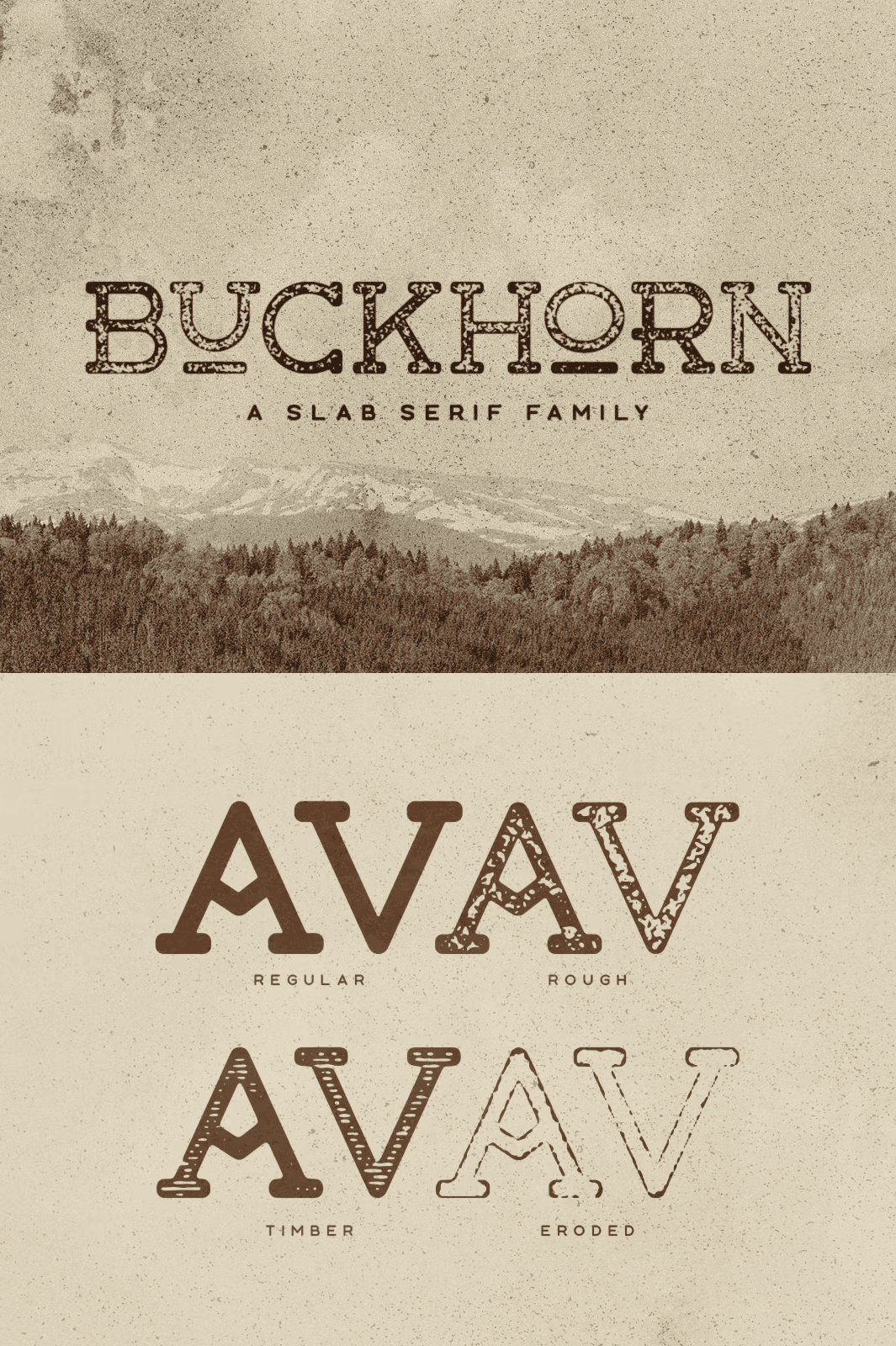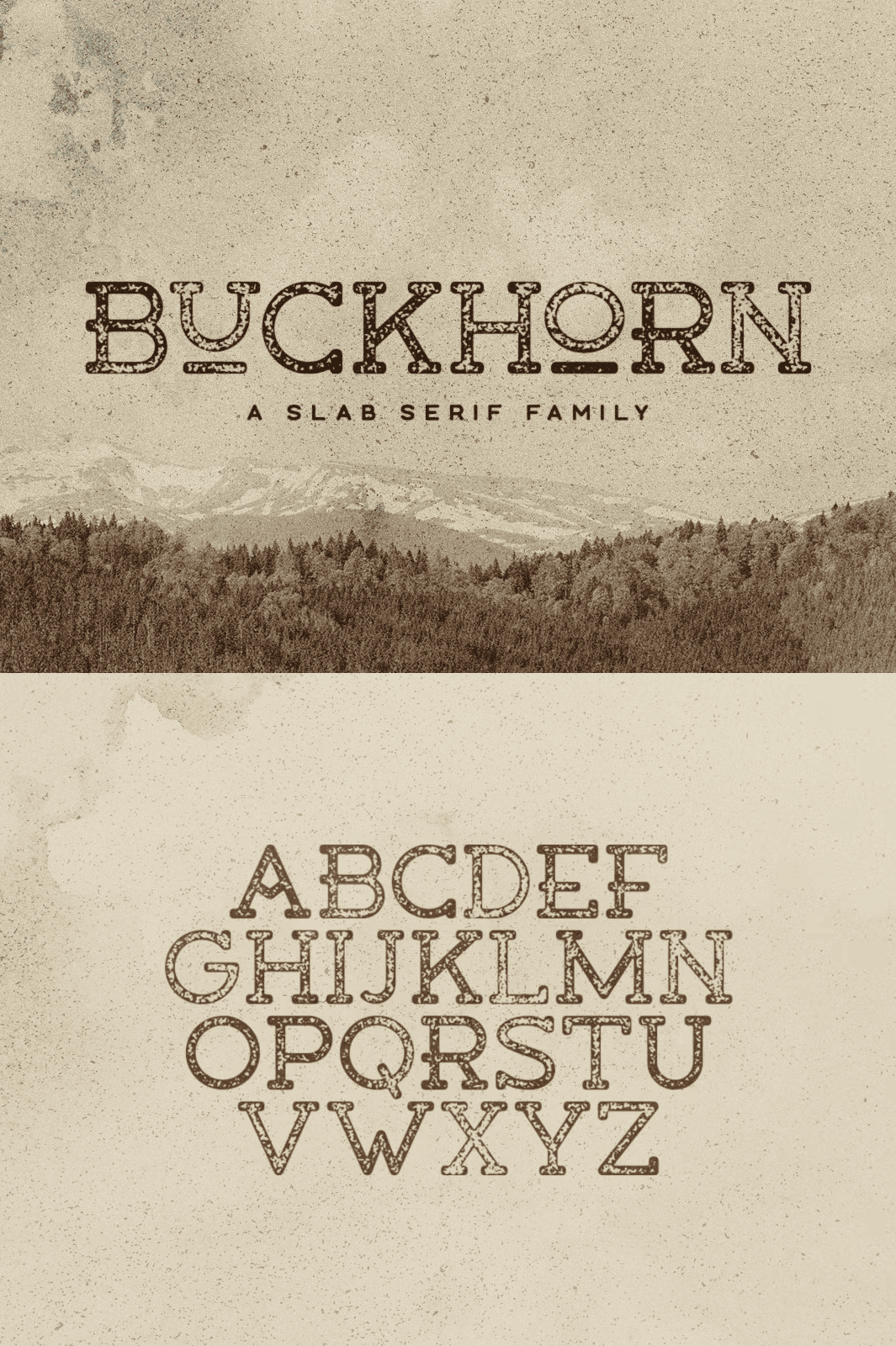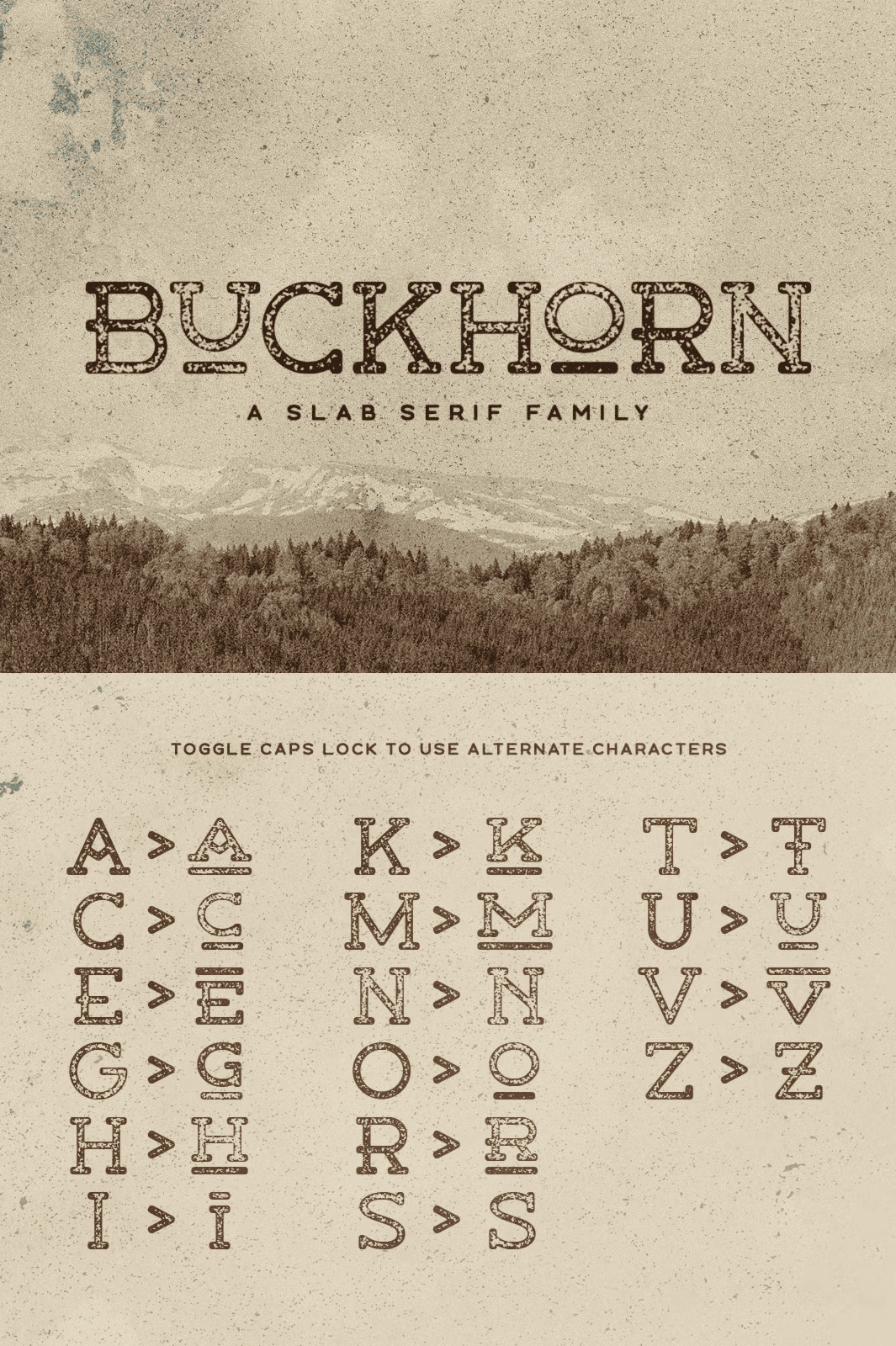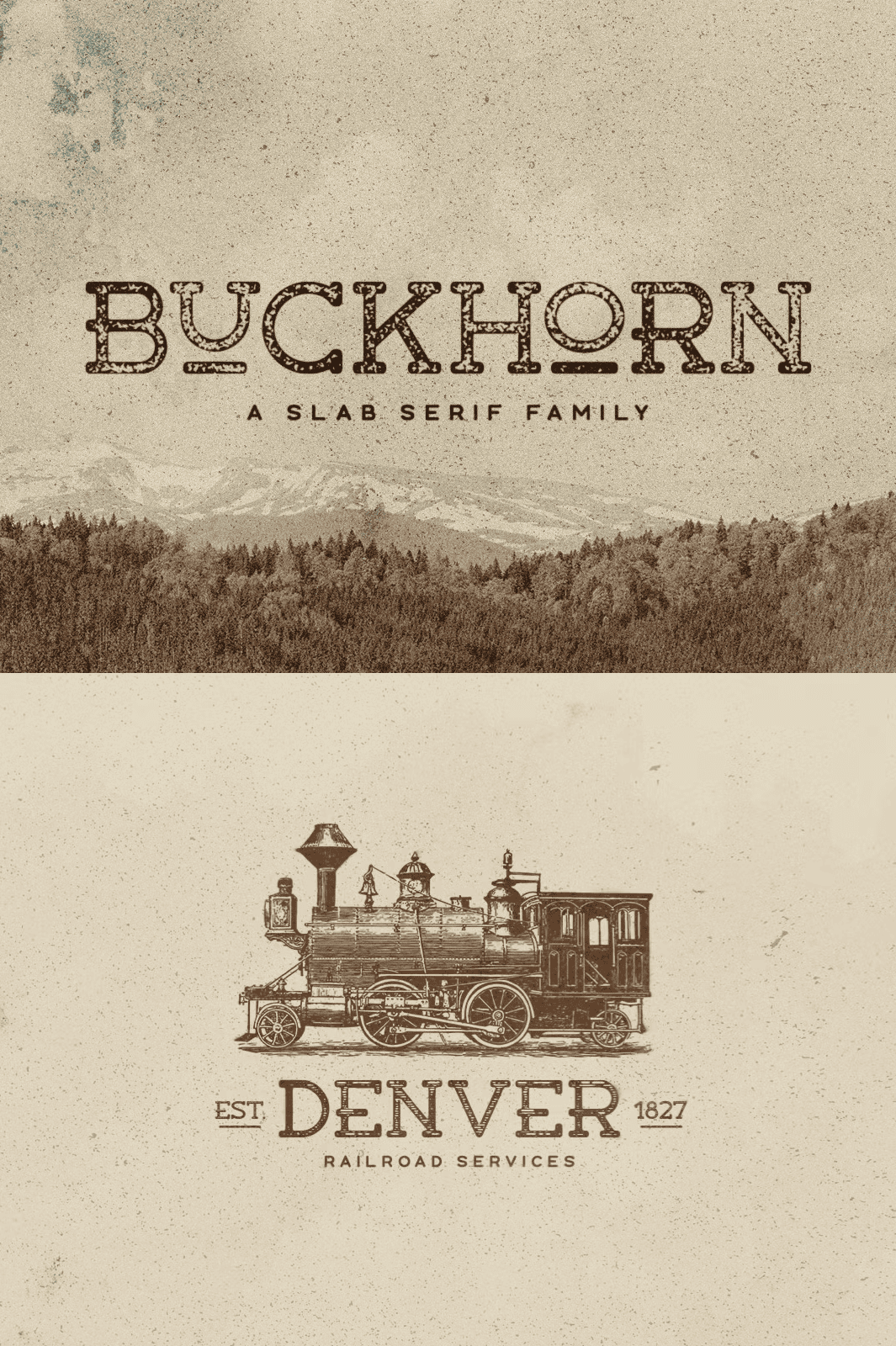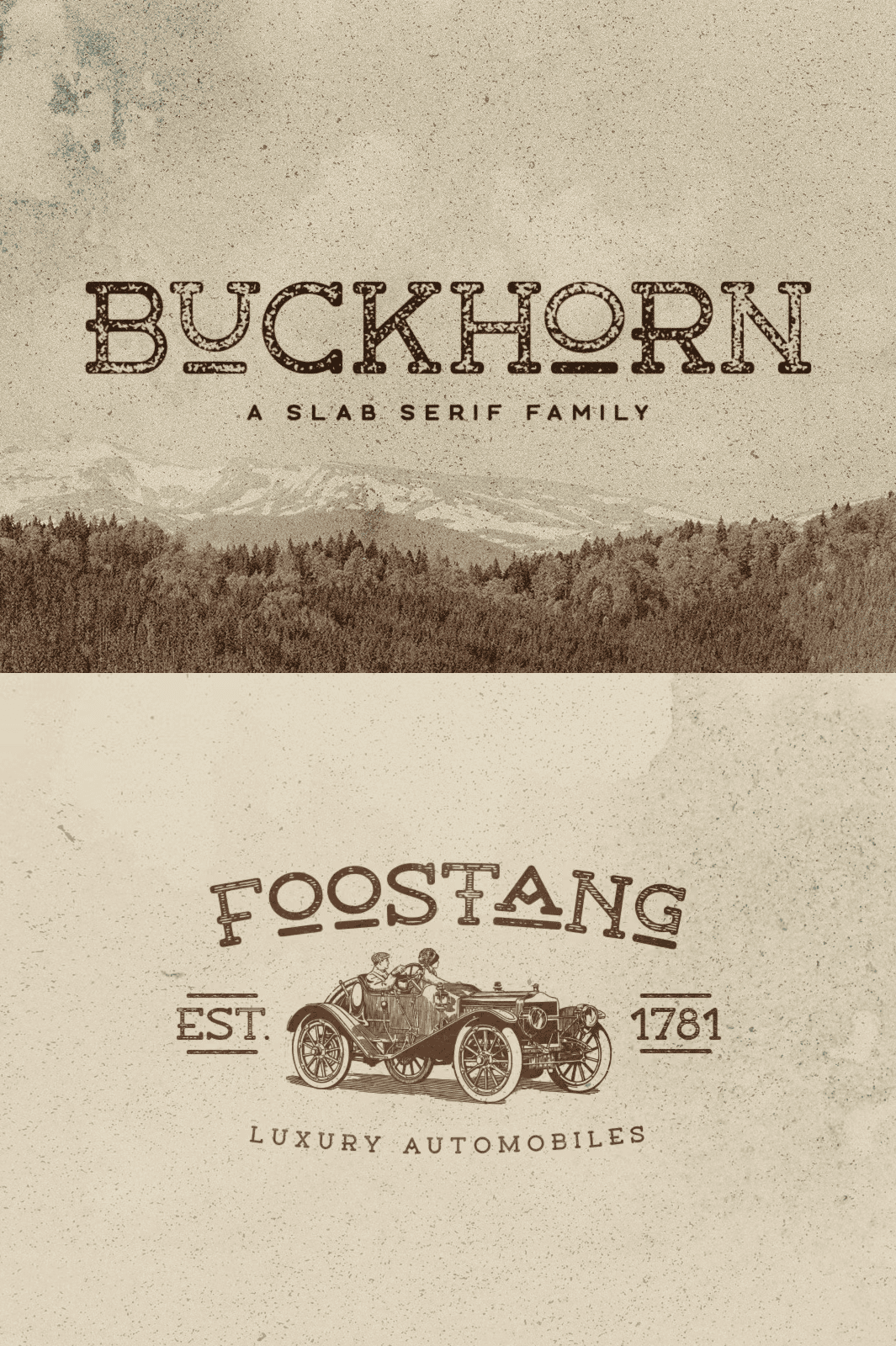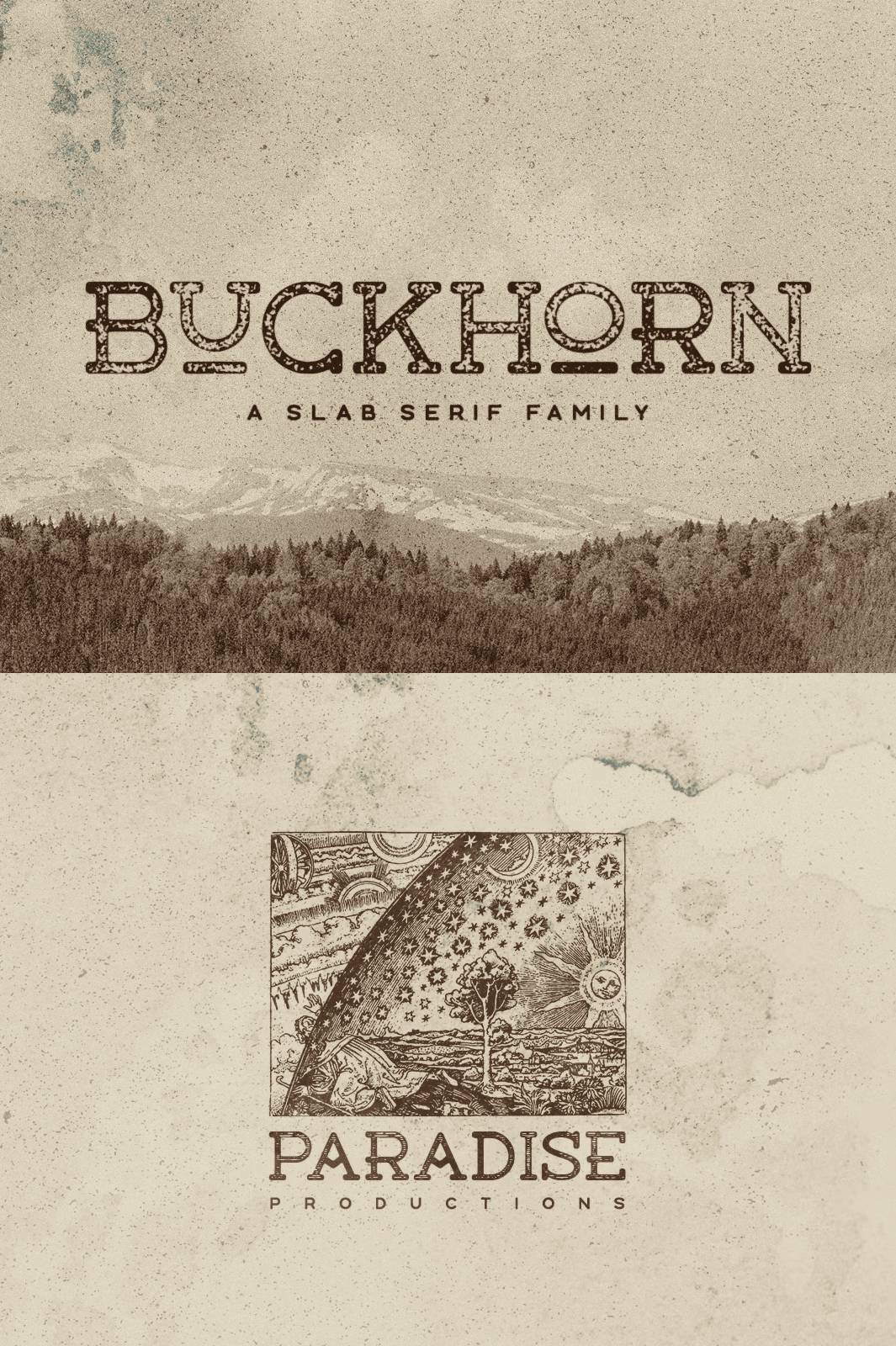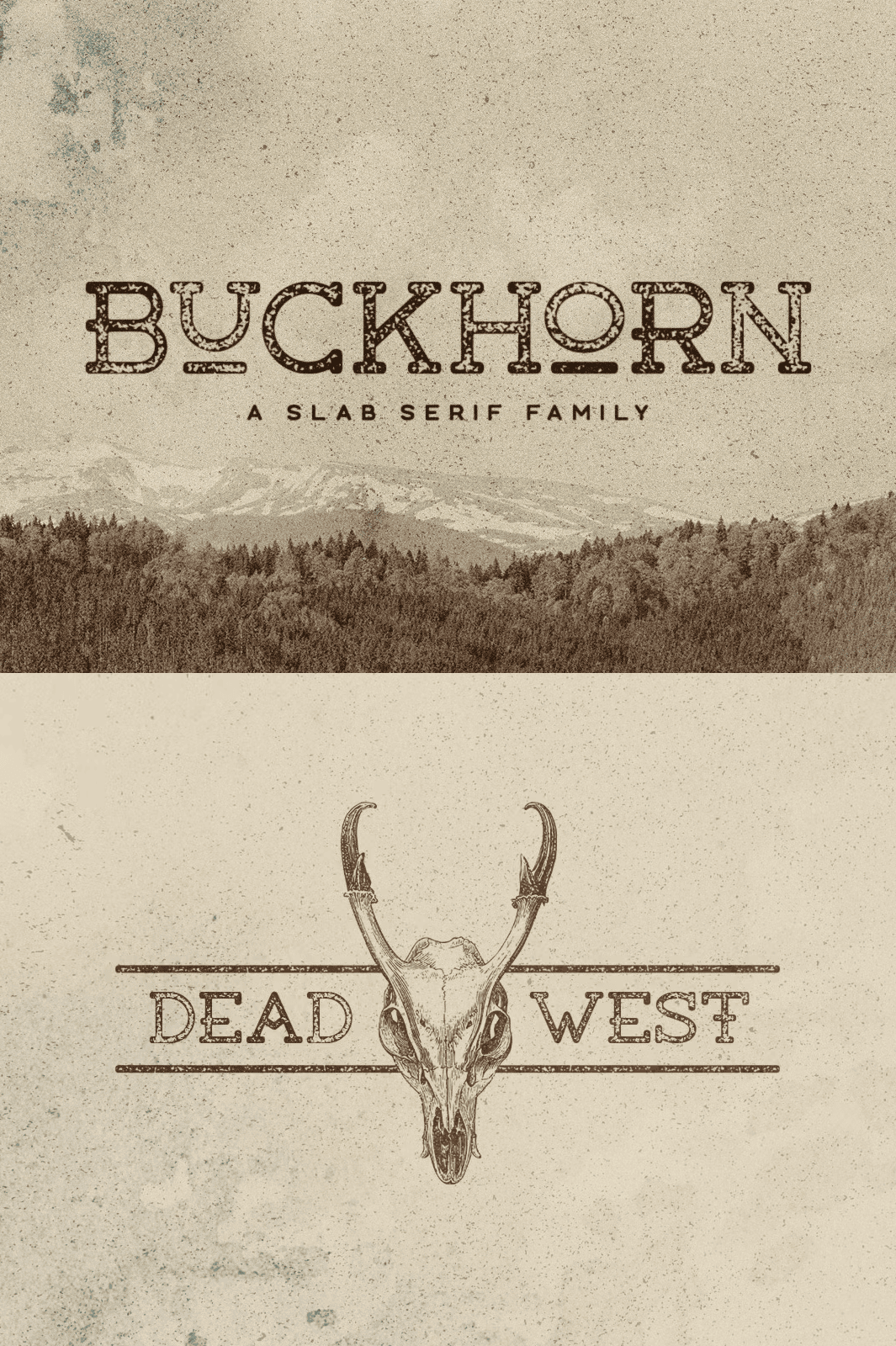
Buckhorn Typeface
Unlock the power of visual dominance with Buckhorn, a commanding slab serif typeface engineered for maximum impact. Designed for designers who demand attention, Buckhorn delivers a relentless presence across digital and print media. With **four fully distinct style options**, you can instantly shift tone, mood, and hierarchy within a single project—without switching fonts. Whether you’re crafting a gritty urban manifesto or a refined art gallery catalog, Buckhorn gives you the creative control to lead the eye and command the canvas.
A Comprehensive Font Family with Four Defining Styles
Buckhorn isn’t just one font—it’s a complete typographic arsenal. Each of its four style variants brings a unique personality to your work:
• Regular – Clean, balanced, and instantly professional, perfect for foundational headings and structured layouts.
• Heavy – An aggressive, high-contrast powerhouse ideal for dramatic headlines and attention-grabbing posters.
• Outline – A striking open-frame style that creates bold negative space, excellent for logos, badges, and high-contrast visual statements.
• Shadow – Adds depth and volume with a subtle drop shadow effect, bringing a three-dimensional presence to titles and signage.
Switch between these styles seamlessly in your design software to create layered, professional compositions with unparalleled visual tension and clarity. This versatility makes Buckhorn your go-to for campaigns, branding projects, and editorial spreads where impact is non-negotiable.
Activate 100+ Alternate Letters with a Single Key Press
Step beyond standard typography with Buckhorn’s extensive set of **100+ alternate characters**—activated in real-time by **holding down the Caps Lock key**. This is no gimmick; it’s a powerful workflow upgrade. Simply press and hold Caps Lock, then type your text, and watch as the font dynamically replaces standard glyphs with artistic variants, custom ligatures, and stylistic alternates.
Each alternate letter introduces subtle or dramatic changes to serifs, terminals, and spacing, allowing you to inject personality, flair, and uniqueness into any word. This feature turns Buckhorn into a living design tool—constantly evolving as you type—making every project feel intentional, authentic, and hand-curated.
Unleash a Bold, Modern Presence Across All Applications
Buckhorn thrives in high-impact environments. Use it for bold branding identities, eye-catching logos, striking posters, dynamic magazine covers, compelling product packaging, immersive website headers, and powerful video title treatments. Its strong, geometric structure ensures readability—even at small sizes—while its slab serifs deliver an unapologetic visual weight.
From streetwear brand identities to luxury editorial layouts, Buckhorn fits seamlessly. Its balanced proportions and sharp detailing make it equally at home in minimalist designs and maximalist compositions.
Fully Multilingual OpenType Support for Global Projects
Designed for international success, Buckhorn supports major European languages, including German, French, Spanish, Italian, and more. With full OpenType features, you gain access to contextual alternates, ligatures, stylistic sets, and fraction support—enabling professional-quality typesetting across languages and markets.
Technical Excellence Meets Creative Freedom
Whether you’re designing a national campaign or a local event flyer, Buckhorn ensures your message lands with strength and precision.
Stop blending in. Stand out. Buckhorn gives you the tools to define your visual voice with boldness and intention. With four styles, hundreds of alternates, and seamless software integration, this is more than a font—it’s a design advantage.